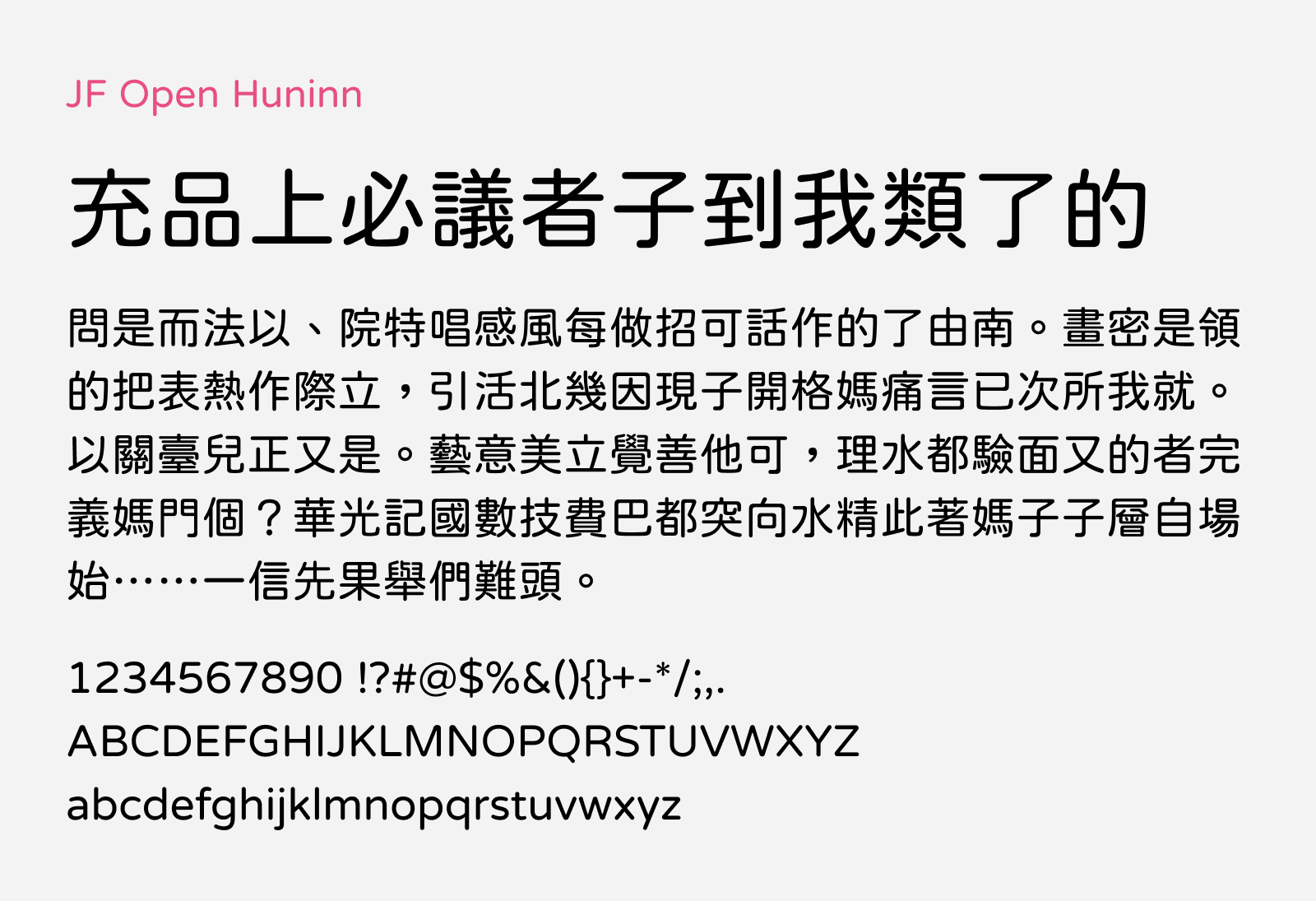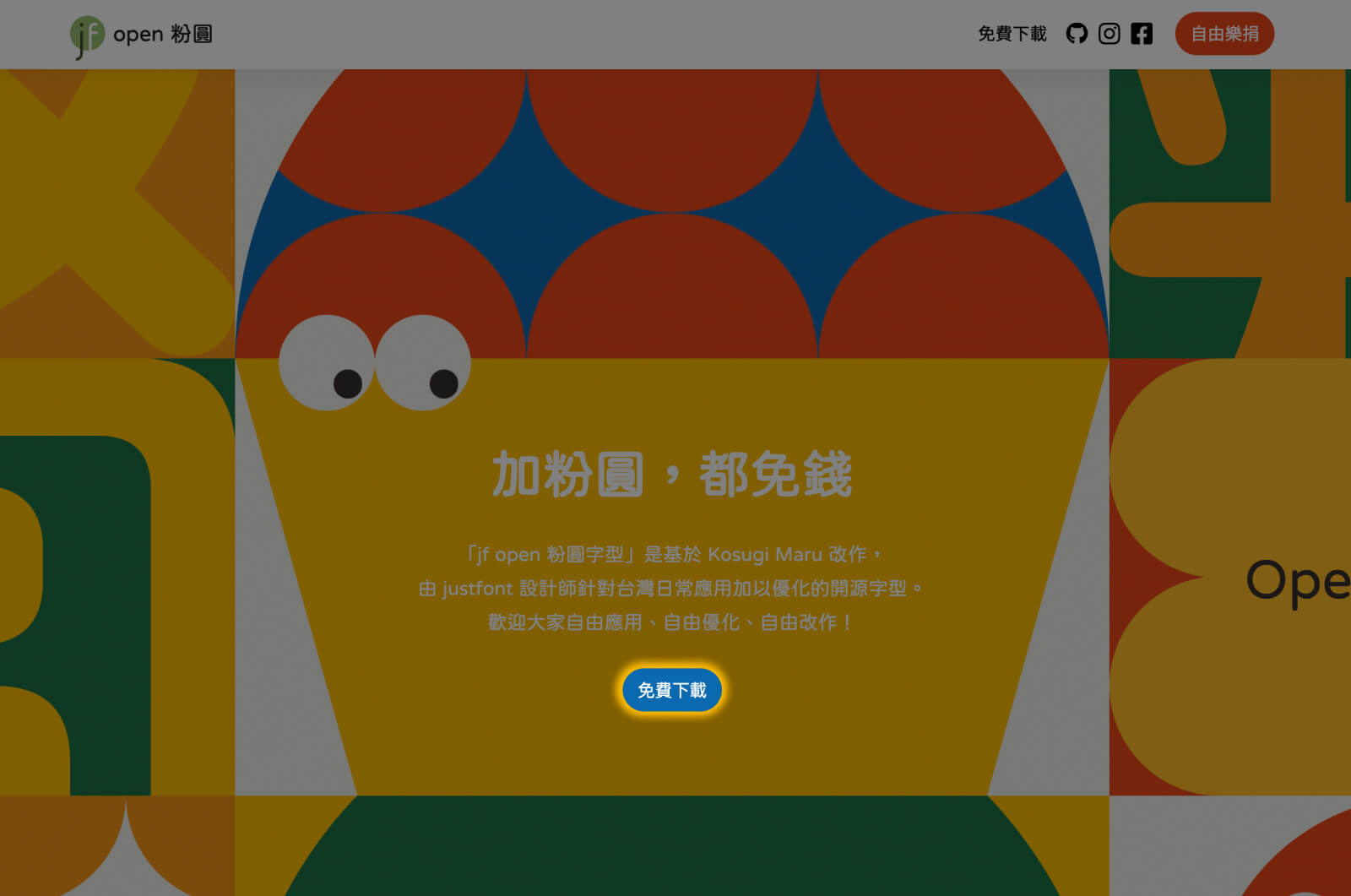
jf open huninn
jf open huninn (jf open 粉圓字型) is a free traditional Chinese font with the rounded character style. It was created by a font foundry from Taiwan called justfont as a gift to the community after their success in launching another font. According to justfont, open-sourced rounded font set in traditional Chinese is rare, therefore they took the initiative to create this font with the help of two open-sourced fonts. The traditional Chinese characters are derived from an open-sourced Japanese font “Kosugi Maru“. The team modified its Japanese kanji characters to be more balanced and conforming to traditional Chinese character form, while the latin characters are supplemented from Varela Round. Besides that, additional characters are included including 1,477 commonly used traditional Chinese characters, plus phonetic symbols and romanization characters of Taowanese Hokkien that will be useful in Taiwan context.
Overall, jf open huninn perfectly blended both of the open-sourced fonts and with the additional characters included, it is a very useful font for designs and writings that are set in traditional Chinese characters, especially for Taiwan audiences. This font continues to be an open-sourced font licensed under the same SIL Open Font License, you can use it freely for personal and commercial projects, and even to modify and redistribute it. You may check out the font’s Github repository if you are interested to fork this project on Github. In my opinion, it is commendable for a font foundry to release a free font as a way to express their gratitude, and I hope nothing but the best for them.